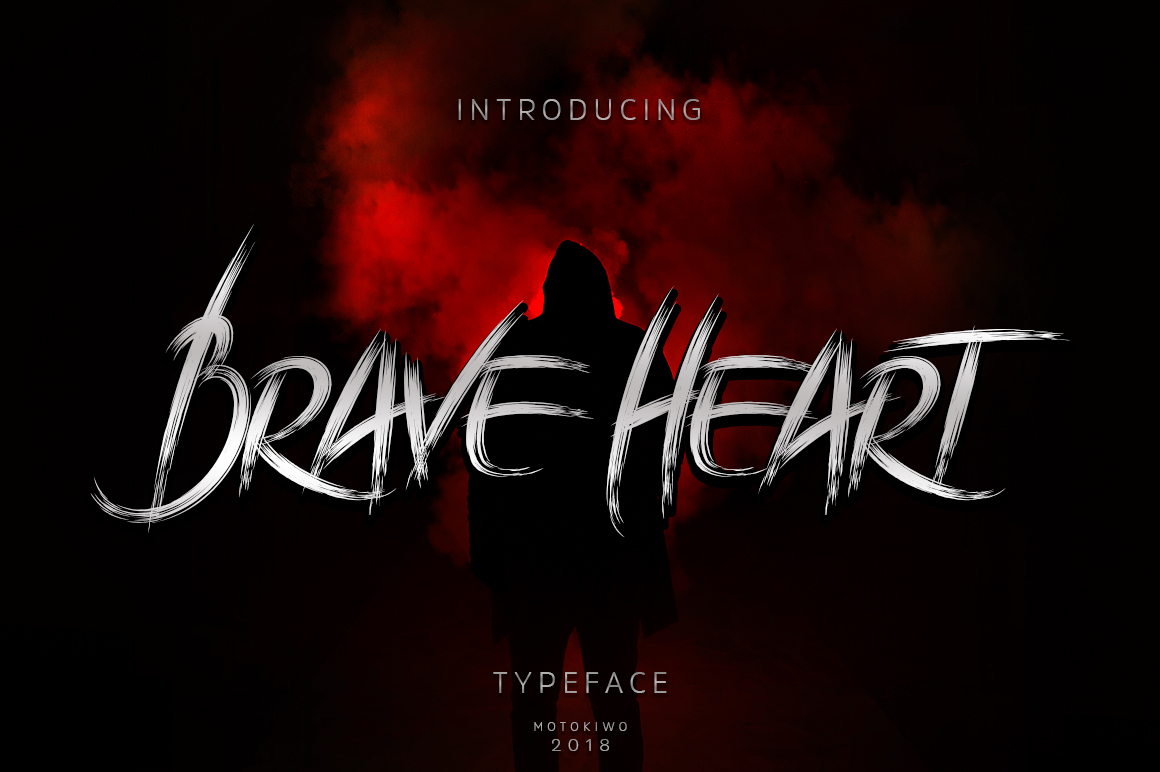
Brave Heart Brush
Brave Heart Brush Font
Brave Heart is a paint brush typeface with sharp style. You need Brave Heart for your masculine design projects 🙂